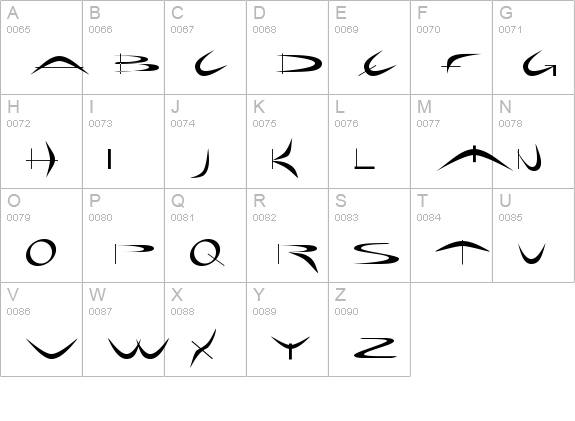
Holiday hardcore Font Details
Introducing the Holiday Hardcore font - a bold and dynamic typeface that exudes energy and enthusiasm. This font is perfect for creating eye-catching designs that demand attention and make a statement. With its sharp edges and strong lines, Holiday Hardcore adds a touch of edginess to any project. The best part? Holiday Hardcore is completely free to download at FontsMarket.com. Whether you're working on a holiday-themed project, a party invitation, or simply want to add some excitement to your designs, this font has you covered. So don't hesitate to grab this stunning typeface and unleash your creativity today!